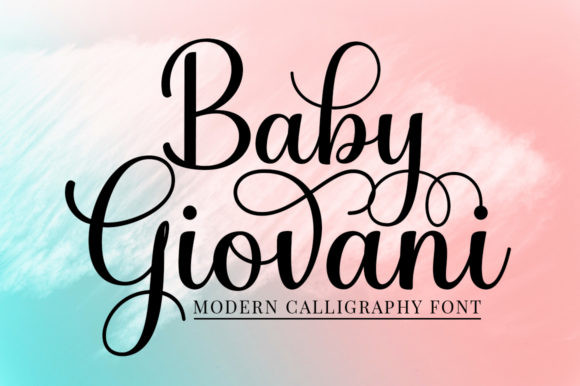
Baby Giovani Font
Baby Giovani is a chic, refined script font that emanates sophistication and elegance. It’s stylish alternates and ligatures make this incredibly feature rich font the perfect match for any project.